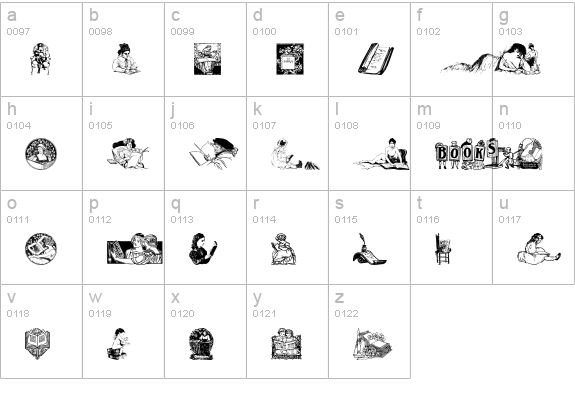
OldFashioned Illus. Font Details
OldFashioned Illus. font is a charming and sophisticated typeface that exudes vintage elegance and timeless appeal. With its ornate details and classic styling, this font is sure to add a touch of nostalgia to any project. Whether you're working on a vintage-inspired design or simply looking to add a touch of old-world charm to your work, OldFashioned Illus. font is the perfect choice. Best of all, OldFashioned Illus. font is available for free download at FontsMarket.com. This means you can easily access and use this beautiful typeface in your projects without any cost. Don't miss out on the opportunity to add a touch of vintage flair to your designs with OldFashioned Illus. font – download it for free today!